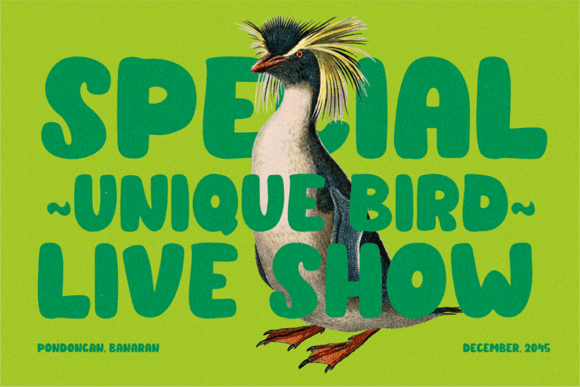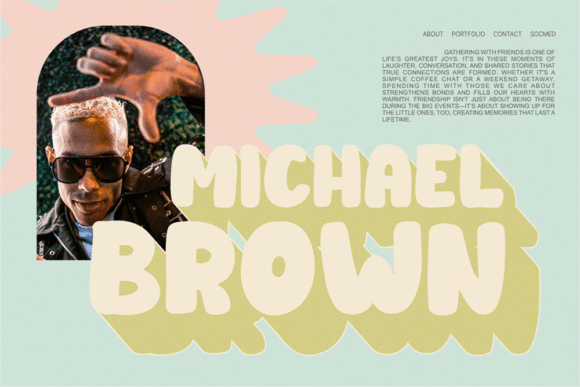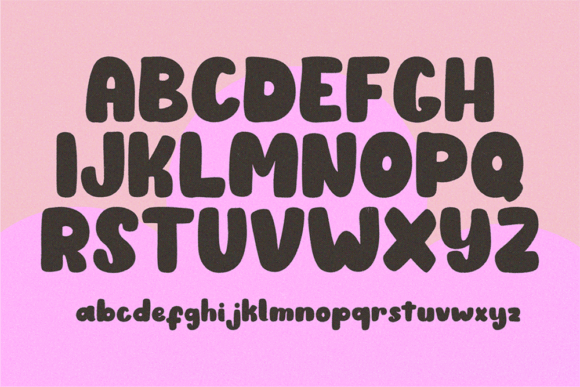
Introduction to Neusro Bleach Font
Have you ever stumbled upon a font that makes you feel like you’re walking on sunshine? A font that screams “let’s get this party started” and refuses to let go? That’s exactly what happens when you encounter the vibrant and energetic Neusro Bleach Font. As a designer, you know the importance of a high-quality font that can elevate your creative project from good to great. And trust us, Neusro Bleach Font is that game-changer you’ve been searching for.
With its charismatic, rounded boldness and funky letterforms, Neusro Bleach Font is tailor-made for designers who crave a unique and attention-grabbing element in their designs. Whether you’re working on a children-centric project, a social media campaign, or a bold packaging design, this font is sure to bring a smile to your face and a dash of creativity to your work.
Key Features of Neusro Bleach Font
- High-quality, bold font with a unique, creative design perfect for a variety of projects.
- Unique characteristic: The Neusro Bleach Font features a bold, bleach-inspired design that adds a touch of edginess to any creative project.
Honest Review: Neusro Bleach Font
I recently stumbled upon the Neusro Bleach Font, and I must say it’s a fantastic addition to any design project. As a designer, I’m always on the lookout for high-quality fonts that can elevate my work. This free download has definitely caught my attention.
What works well is the creative versatility of this font. It’s perfect for a wide range of projects, from modern graphic designs to vintage-inspired art. The transparent background allows for seamless integration with other design elements, making it a valuable design resource.
- ✨ Unique and modern design
- ✨ Transparent background for easy integration with other elements
- ✨ High-quality design suitable for a variety of projects
While the Neusro Bleach Font is excellent, I did notice a few limitations. The font may not be suitable for very small text sizes, and the bold weight can be a bit too thick for some designs. Additionally, the font family is relatively small, with only a few weights and styles available.
Overall, I’m impressed with the Neusro Bleach Font. It’s a fantastic resource for designers looking to add a touch of modernity to their work. With its high-quality design and transparent background, it’s a must-have for any creative project.
Tips for Getting the Most Out of Neusro Bleach Font
Use the Neusro Bleach Font with a high-quality image or background to create a visually appealing design. Experiment with different font sizes and styles to add depth and interest to your design. You can also use the font in combination with other design elements, such as shapes and icons, to create a unique and creative project.
The Neusro Bleach Font is a versatile design resource that can be used for a variety of projects, including graphic design, digital art, and print design. It’s a great choice for creating invitations, posters, and other marketing materials that require a high-quality and professional look.